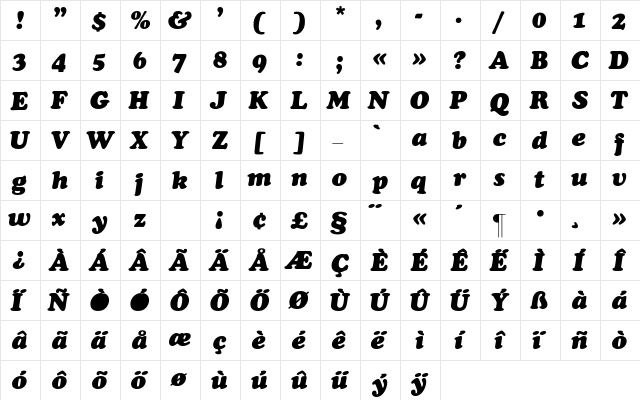
Cooper_Black-Italic Regular
Design Context for Cooper_Black-Italic Typeface
Cooper_Black-Italic is a composed and adaptable typeface that performs quietly and consistently across a wide range of design contexts. The dynamic lean of this cut emphasises speed and emphasis in any layout.